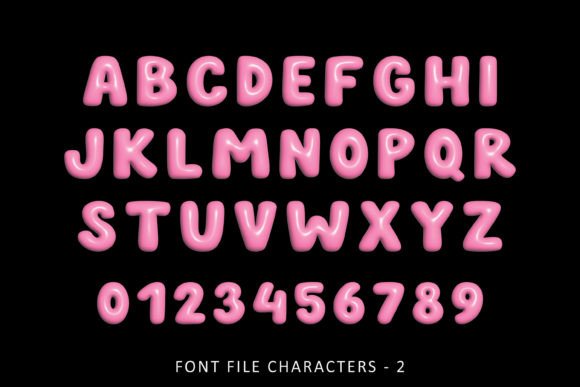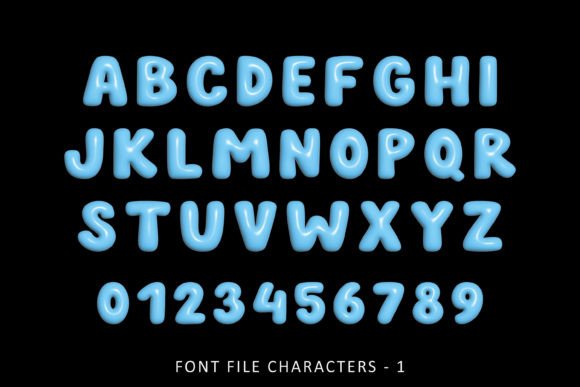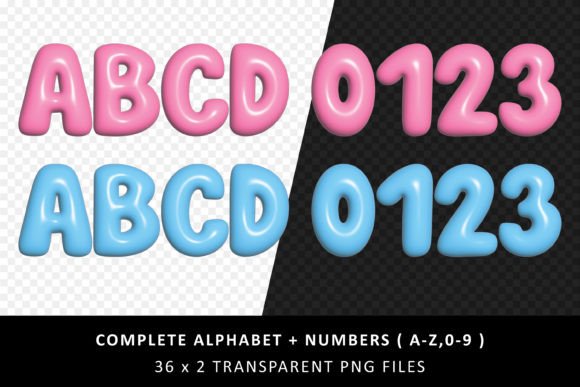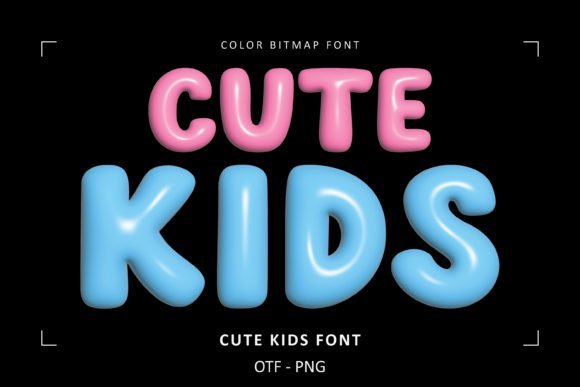
Introduction to Cute Kids Font
Introducing a sweet color font named β€œCute Kids Font” a Charming, rounded letters font for you to use in your upcoming projects.
This unique font will bring a cheerful vibe to any text Perfect for expressing affection and happiness, It will certainly make your designs stand out.
Cute Kids Font offers exceptional quality and versatility, making it a valuable addition to your design toolkit. Whether you’re creating for personal projects or commercial use, Cute Kids Font delivers professional results.